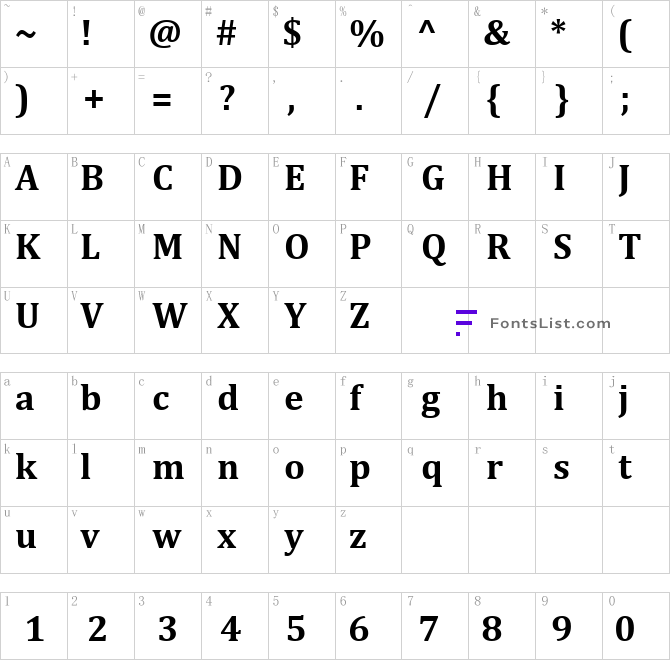
- Font Name:Cambria
Cambria-Bold-copy-1-.ttf is a very beautiful artistic font, Cambria-Bold-copy-1-.ttf is widely used in the design and printing of various books and pictures,Cambria-Bold-copy-1-.ttf has a strong visual impact,Cambria-Bold-copy-1-.ttf is a commonly used font in newspapers, magazines and books, and is used in posters, e-commerce Poster design, store design, logo design, font design and other fields.Cambria-Bold-copy-1-.